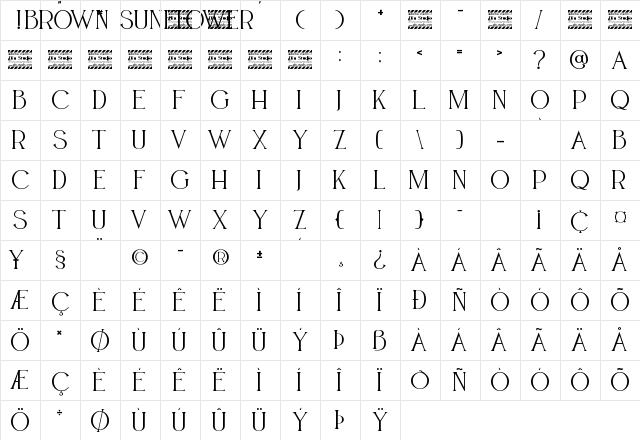
BROWN SUNFLOWER SERIF PERSONAL Regular Free Font
BROWN SUNFLOWER SERIF PERSONAL Regular
Designer: Donis Miftahudin
Design Context for BROWN SUNFLOWER SERIF PERSONAL
BROWN SUNFLOWER SERIF PERSONAL carries the refined structure of traditional serif typography, with bracketed terminals and considered proportions that communicate credibility and craft.